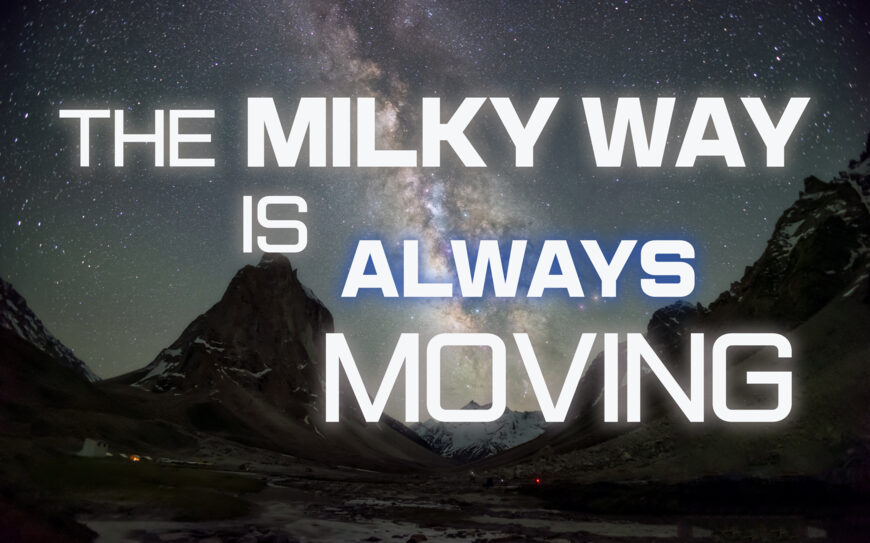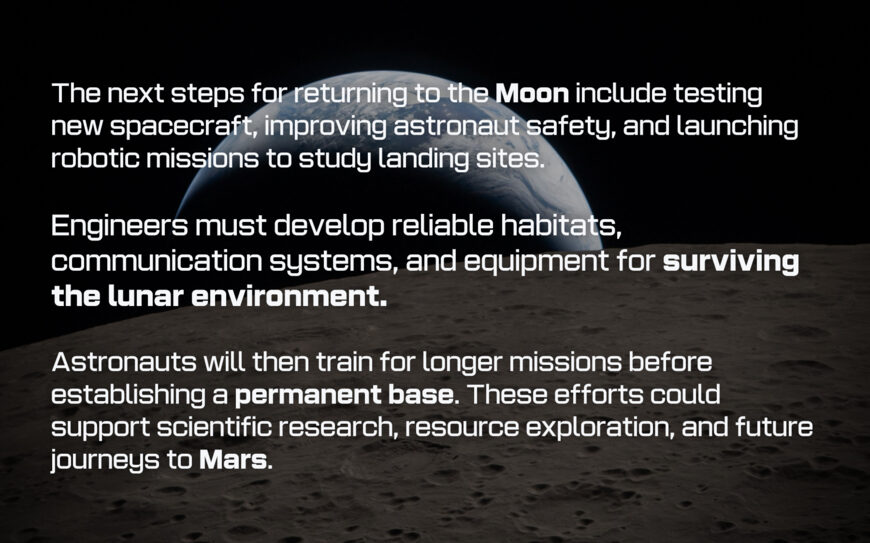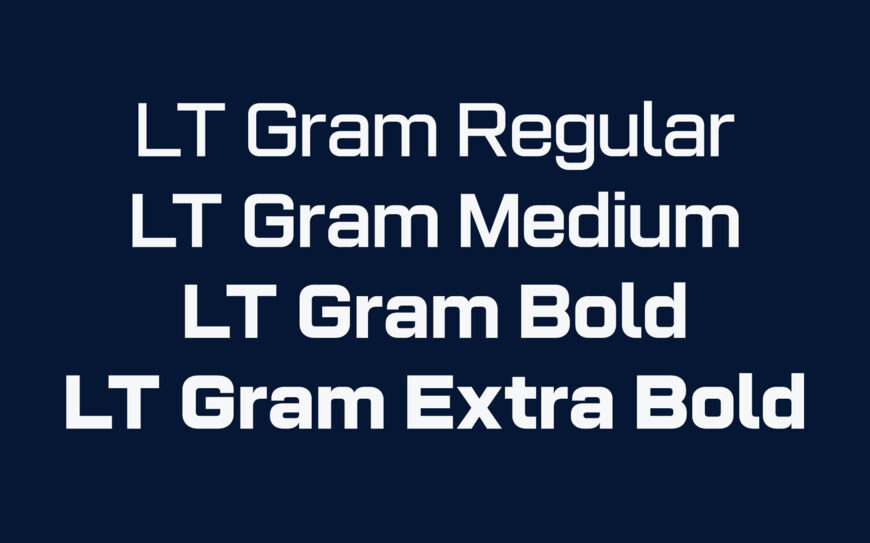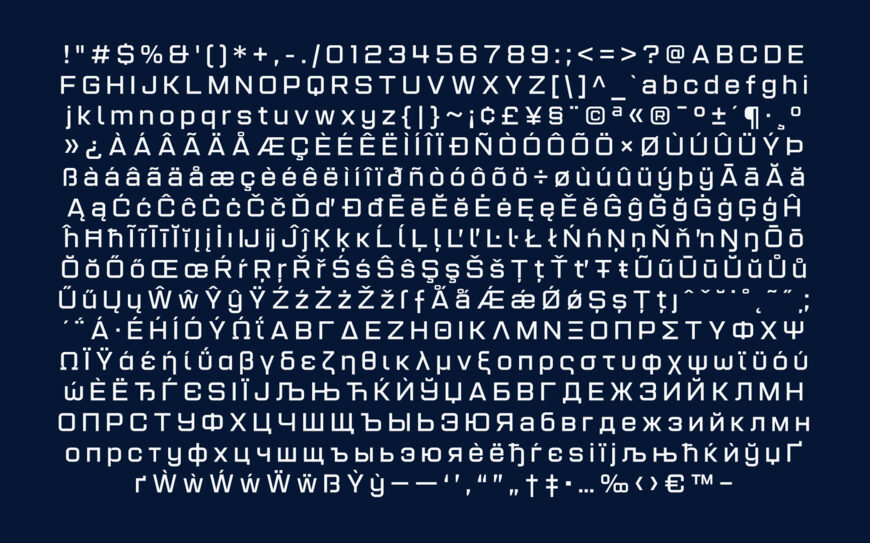
LT Gram is a futuristic sans-serif typeface inspired by classic Eurostile aesthetics. Its squared forms, rounded corners, and clean geometric construction create a distinctive technological character.
Available in four weights (Regular, Medium, Bold, Extra Bold), it works well for headlines, scoreboards, branding, interfaces, science-fiction graphics, and modern editorial layouts. Extensive Paneuropean character support also makes LT Gram suitable for multilingual projects requiring a bold, precise, and highly readable appearance.